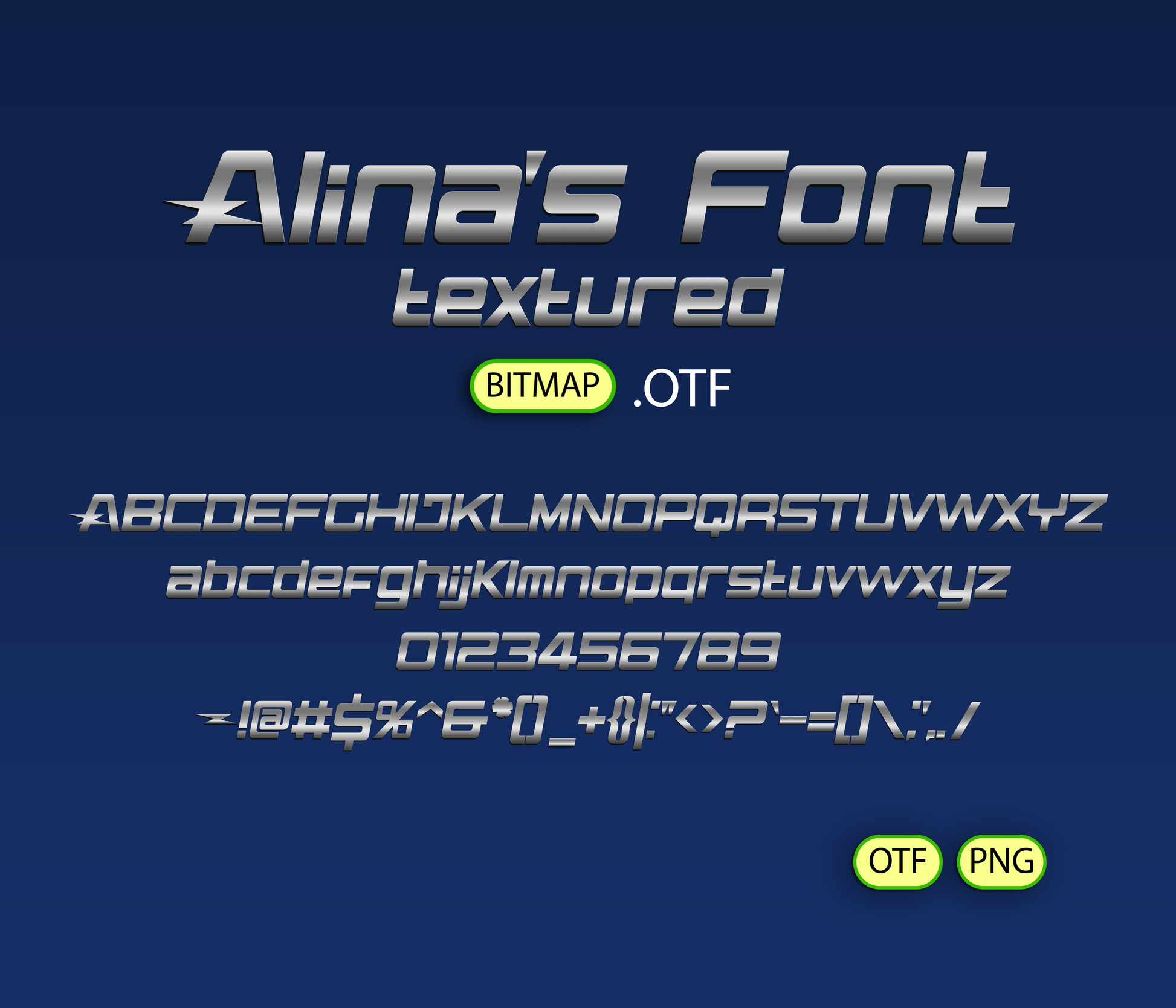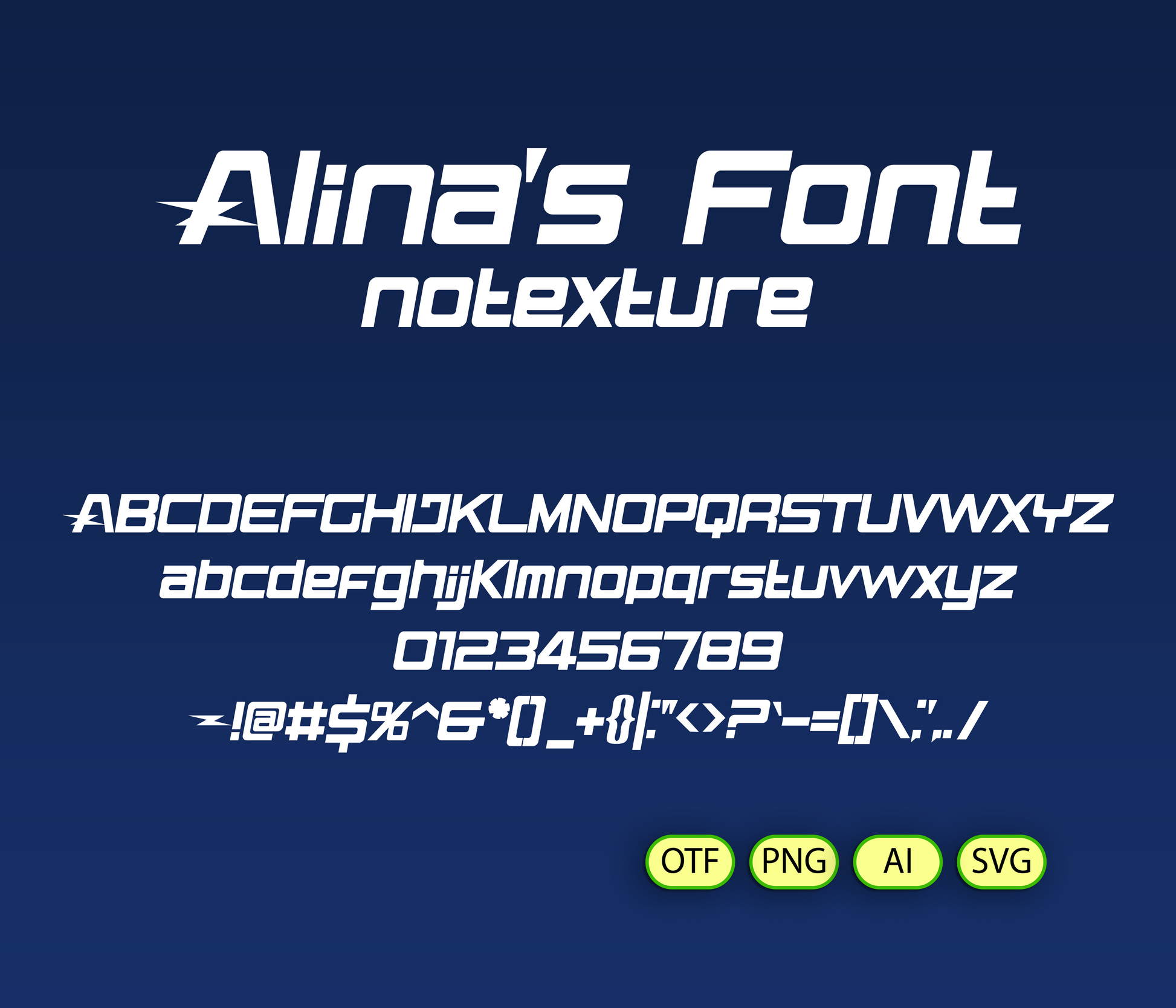
The Speedster Font Textured
The Speedster Typeface: A Blend of Velocity, Energy, and Iconic Design
Step into The Speedster's fast-paced world, where speed and heroism merge with striking typography. The Speedster movie logo embodies the universe's scarlet speedster, featuring dynamic elements narrating a story of velocity, energy, and superhero charisma. Imagine crimson and gold fused with a lightning bolt's quick dash - this is the essence of our Speedster Typeface.
What is the Speedster Typeface?
Our Speedster Typeface is a tribute to iconic logo evolution. From its beginnings as a simple red shirt with a golden lightning bolt to its modern bold design, this typeface captures the superhero's journey. The Speedster movie logo's font exudes energy and urgency, reflecting The Speedster's super-speed and dynamic nature. It's about embodying the character's essence in every curve and stroke.